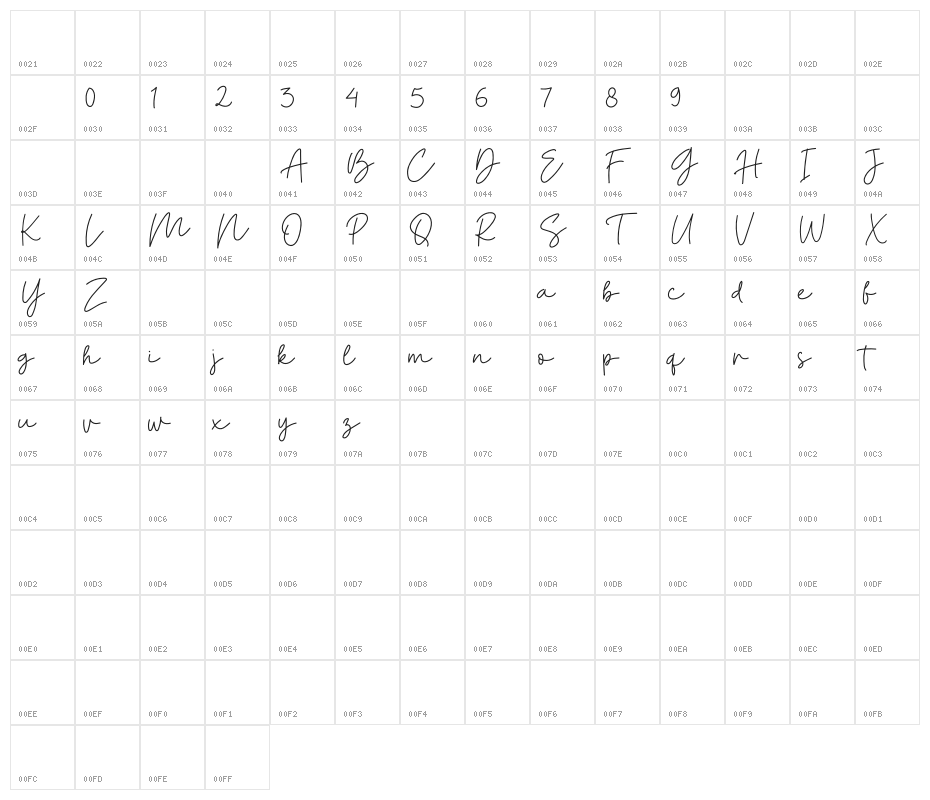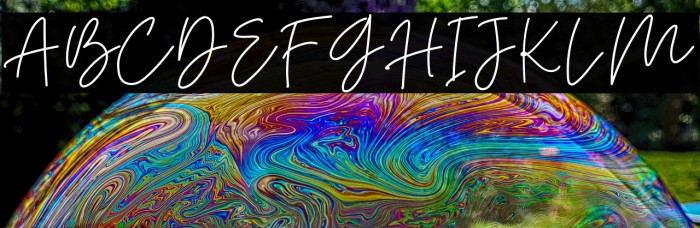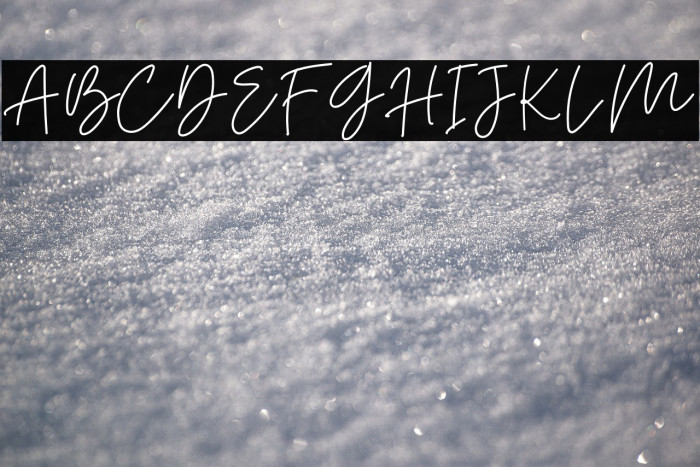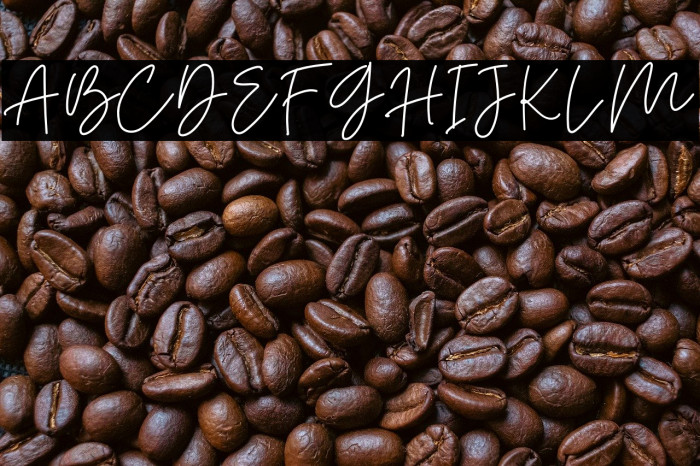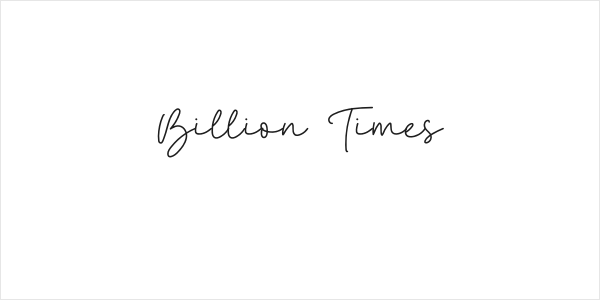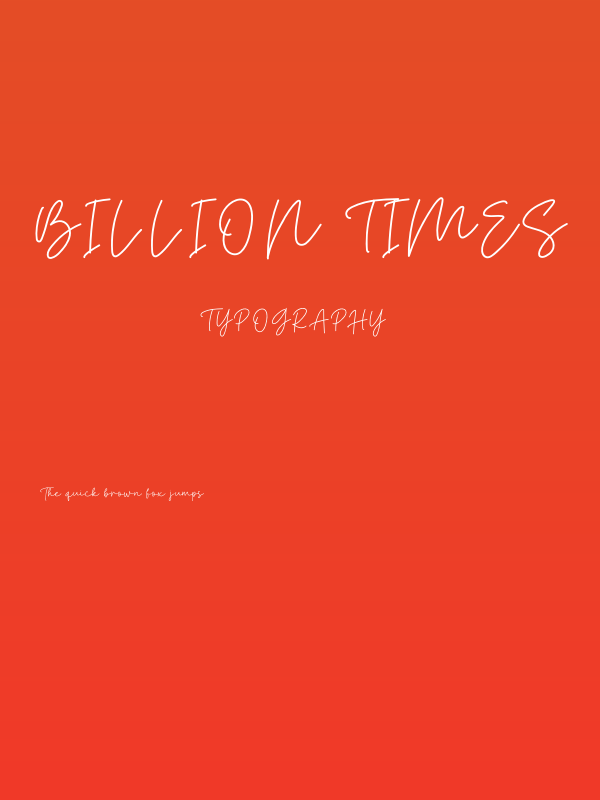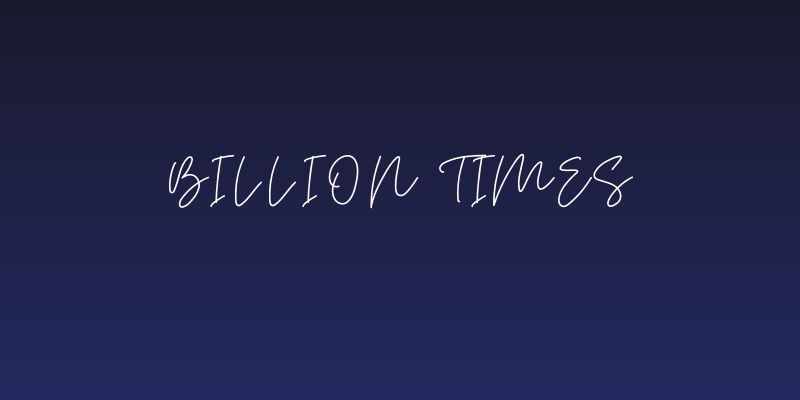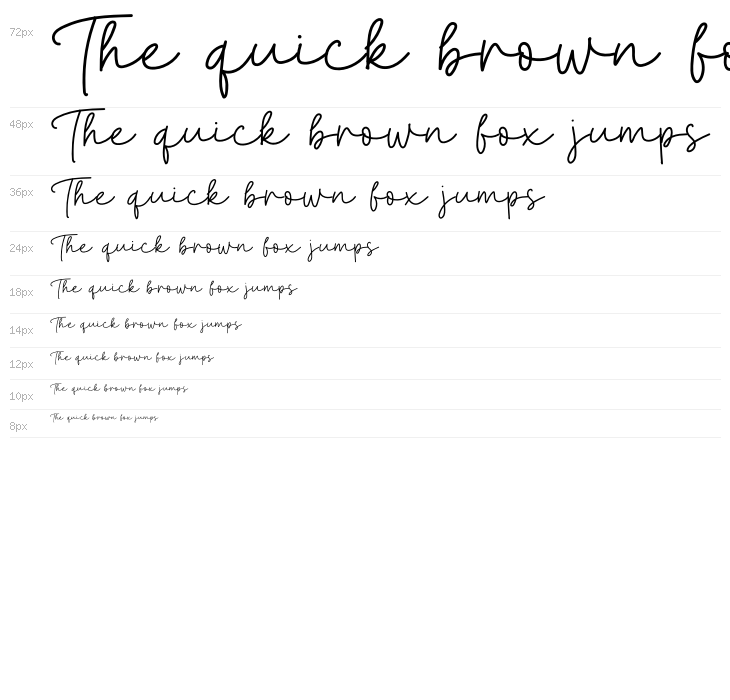
Billion Times Font
Billion Times Description
This font features a flowing, handwritten style that exudes elegance and personality. The letters are connected in a cursive manner, giving it a natural and organic feel. The uppercase letters are slightly larger and more pronounced, while the lowercase letters maintain a consistent flow. The numbers are clear and easy to read, complementing the overall aesthetic. The special characters blend seamlessly with the rest of the font, maintaining the same handwritten charm. This font is perfect for projects that require a personal touch, such as invitations, greeting cards, or branding materials.
| Use Case | Logos, Headlines, Personal projects |
| Proposed Projects | Ideal for invitations, greeting cards, branding, and personal projects. |